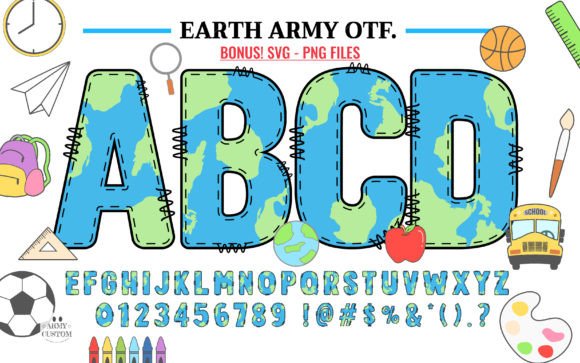
Earth Army Font: Elevate Your Designs with a Cool and Useful Color Font
Are you looking for a font that can add a touch of creativity and uniqueness to your projects? Look no further than the Earth Army Font! This cool and useful color font is perfect for designers, crafters, and artists who want to make an impact with their work. In this article, we’ll explore the features and benefits of the Earth Army Font, and how you can use it to take your designs to the next level.
What is Earth Army Font?
Earth Army Font is a vibrant and versatile color font that can be used for a wide range of creative projects. Whether you’re working on arts and crafts, scrapbooking, stationery, cards, party invitations, blog banners, or wall art, this font is sure to make your designs stand out. The font comes in two versions: a black version and a color version. The black version is compatible with Cricut Design Space and other cutting machines, making it perfect for crafters who use these tools. The color version, on the other hand, is compatible with certain design programs, including PhotoShop, Illustrator, Silhouette, and Inkscape.
Key Features of Earth Army Font
- Cool and Useful: The Earth Army Font is a unique and creative font that can add a touch of personality to your designs.
- Color Font: The font comes in a range of colors, making it perfect for designers who want to add a pop of color to their work.
How to Use Earth Army Font
- Experiment with Colors: The Earth Army Font comes in a range of colors, so don’t be afraid to experiment and find the perfect color for your design.
- Use it for Headings and Titles: The font is perfect for headings and titles, and can add a touch of personality to your designs.
- Pair it with Other Fonts: The Earth Army Font can be paired with other fonts to create a unique and interesting design.
The Earth Army Font is a cool and useful color font that can add a touch of creativity and uniqueness to your designs. With its range of colors and compatibility with design programs and cutting machines, this font is perfect for designers, crafters, and artists who want to make an impact with their work. Whether you’re working on arts and crafts, scrapbooking, stationery, cards, party invitations, blog banners, or wall art, the Earth Army Font is sure to take your designs to the next level.